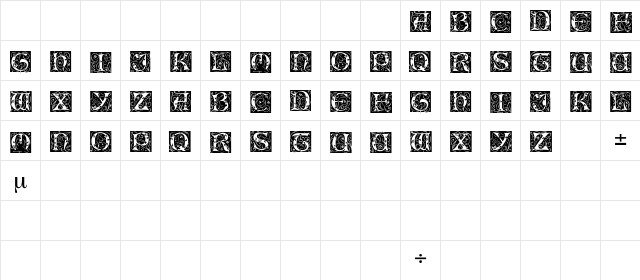
IlluminatiOneDisplayCapsSSK Regular
Design Context for IlluminatiOneDisplayCapsSSK Typeface
IlluminatiOneDisplayCapsSSK is built around its visual character rather than neutral utility — its distinctive forms are designed to make an impression at display sizes.
Font Pairing: Pair with a clean neutral sans-serif for body copy to let IlluminatiOneDisplayCapsSSK's character lead without overwhelming the composition.
Pro Tip: Treat IlluminatiOneDisplayCapsSSK as the centrepiece of your typographic hierarchy. One strong heading set in a decorative face can carry an entire layout.